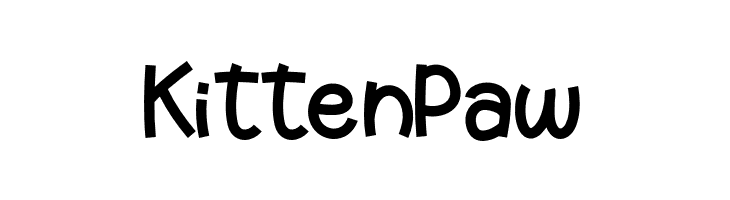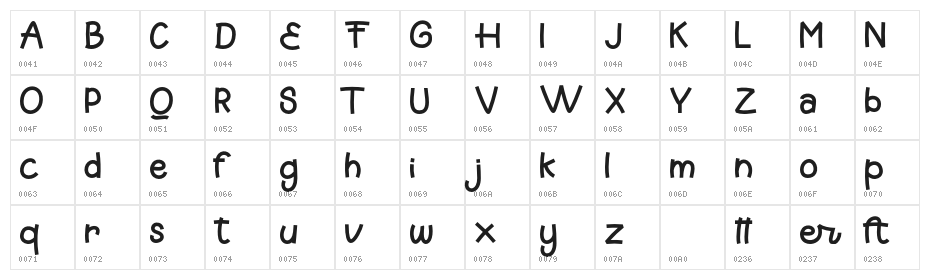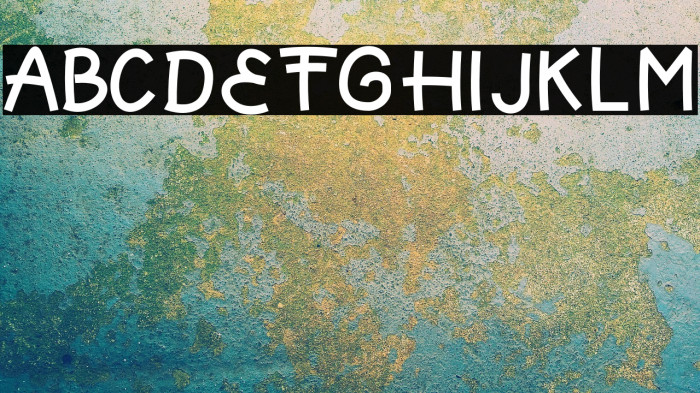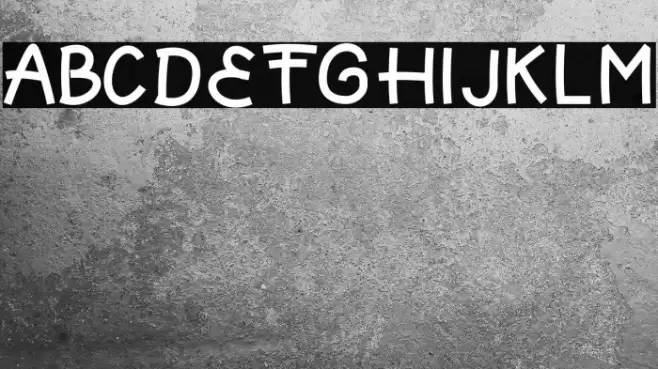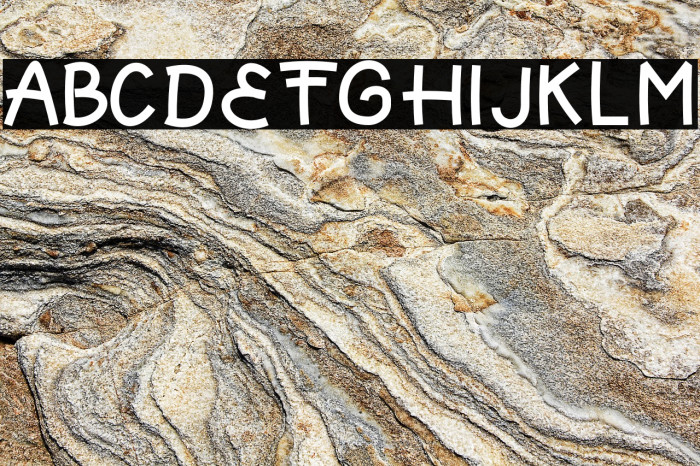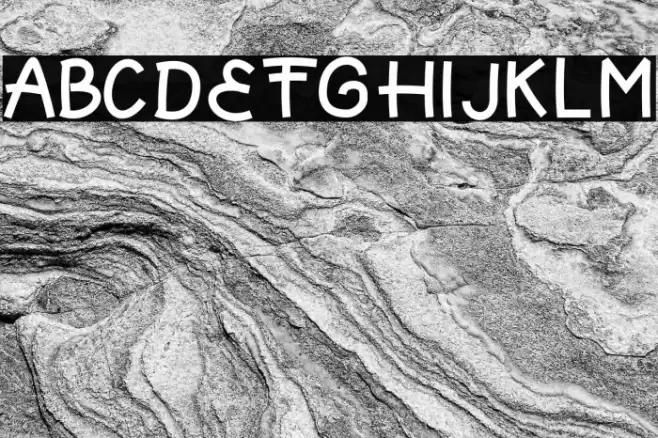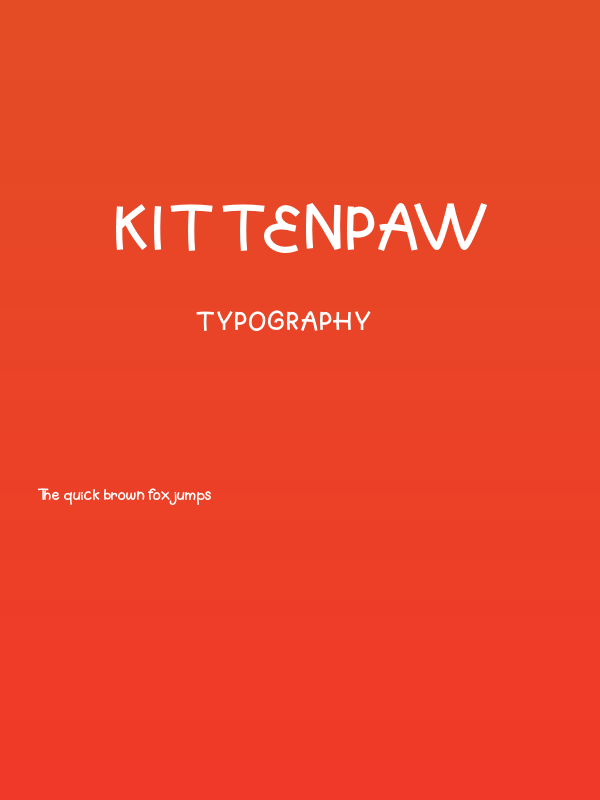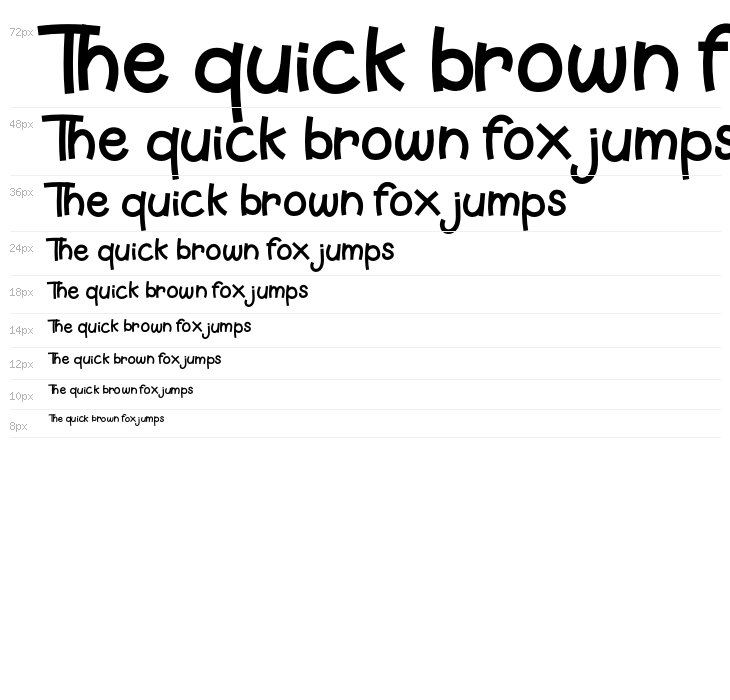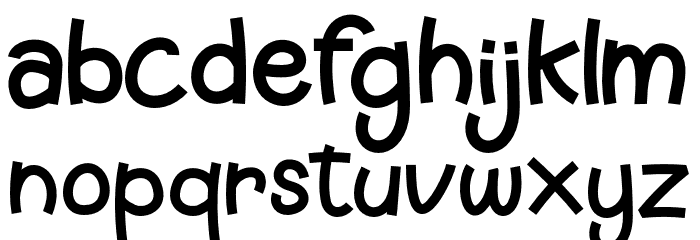
KittenPaw Font
KittenPaw Description
This playful and whimsical font features a handwritten style with a casual and friendly appearance. The letters are slightly irregular, giving it a charming and informal look. The uppercase characters are bold and rounded, while the lowercase letters have a more flowing and dynamic form. The font lacks traditional serifs, contributing to its modern and approachable feel. It is well-suited for projects that require a touch of fun and creativity, such as children's books, playful branding, or informal invitations. The font's unique character shapes make it stand out, adding personality to any design.
| Proposed Projects | Ideal for children's books, playful branding, informal invitations, and creative projects. |